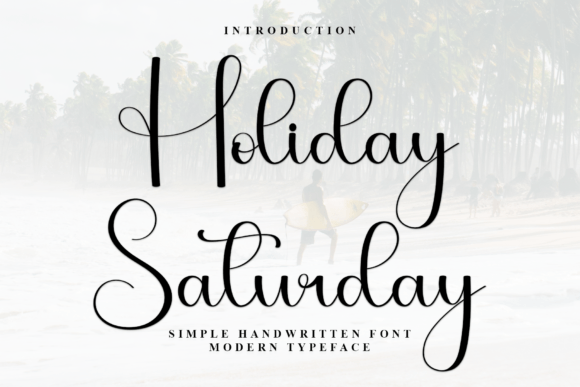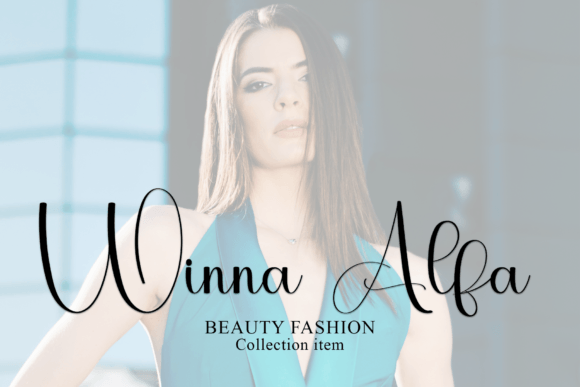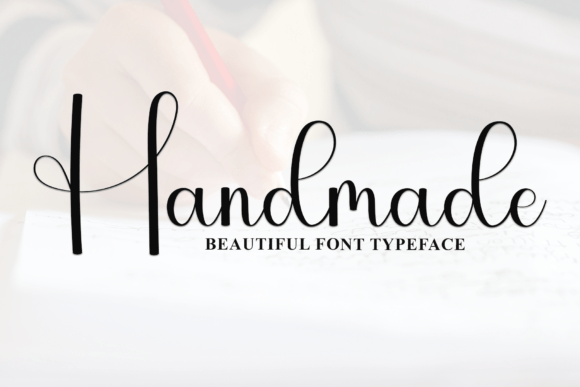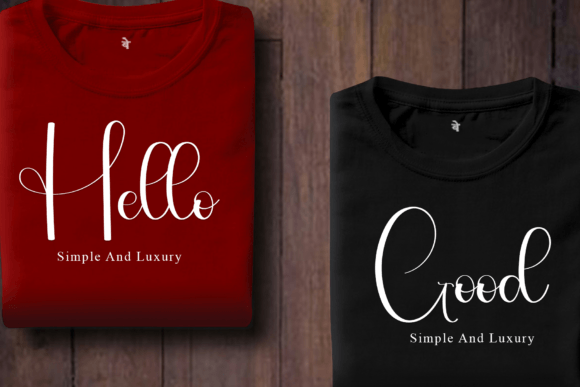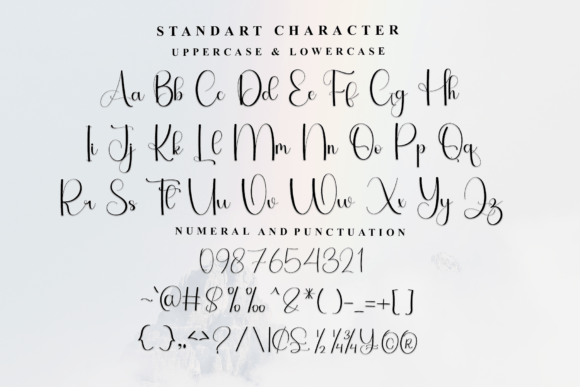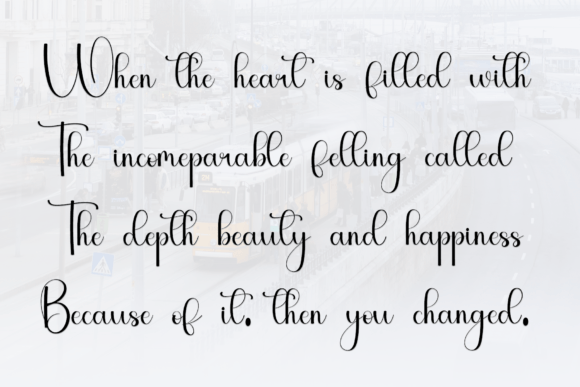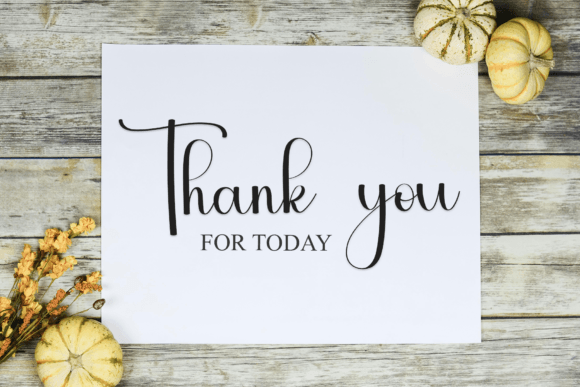
Discover the Magic of the Holiday Saturday Font
There’s something special about the moment when a design idea finally comes together. You’re sipping your morning coffee, surrounded by sketches and color palettes, and suddenly, it all clicks. The fonts, the colors, the textures – everything falls into place, and you know you’ve created something truly special. For designers like you, finding the perfect font can be the key to unlocking that magic.
That’s where the Holiday Saturday Font comes in – a beautiful, handwritten font that’s perfect for creating eye-catching logos, branding, and quotes. With its unique, handcrafted touch, this font brings a personal and emotional depth to any design. Plus, its PUA coding makes it easy to access all the amazing glyphs and ligatures, giving you even more creative freedom. Whether you’re working on a holiday project or just need a font that adds a little extra something, the Holiday Saturday Font is a valuable addition to any designer’s toolkit.
Holiday Saturday Font Key Features
- Font Family: Holiday Saturday is a script font, ideal for creating festive and celebratory designs.
- Unique Characteristics: Features intricate details, swashes, and flourishes, making it perfect for creating eye-catching holiday-themed designs.
Designer Review: Holiday Saturday Font
Overall, I think the Holiday Saturday Font is a cute and playful addition to any holiday-themed project. ✨ The font’s rounded edges and festive feel make it perfect for creating cheerful and welcoming designs.
- ✨ The font’s consistency and uniformity make it easy to read and use in various contexts.
- ✨ The font’s bold and italic styles add versatility to the design, making it suitable for headings, titles, and even body text.
- ✨ The font’s festive feel is perfect for holiday-themed projects, making it a great choice for designers who want to add a touch of cheer to their designs.
However, there are a few limitations to the Holiday Saturday Font that designers should be aware of:
- ⚠️ The font may not be suitable for formal or professional designs, as its playful and festive feel may not be suitable for more serious contexts.
- ⚠️ The font’s bold and italic styles may not be available in all languages or character sets, which could limit its use in multilingual designs.
In conclusion, the Holiday Saturday Font is a fun and festive addition to any holiday-themed project. While it may have some limitations, its consistency, versatility, and playful feel make it a great choice for designers who want to add a touch of cheer to their designs.
The Holiday Saturday Font is perfect for:
- Creating festive holiday invitations and cards.
- Designing holiday-themed social media graphics and ads.
- Adding a touch of holiday cheer to your branding and marketing materials.
Alternatives to Holiday Saturday Font for Designers
Bebas Neue is a modern sans-serif font that is perfect for headings and titles. It has a clean and minimalist design, making it ideal for digital and print designs. When to use: Bebas Neue is suitable for designs that require a bold and modern look, such as fashion, technology, and lifestyle brands.
Comparison to Holiday Saturday Font: Bebas Neue has a more modern and sleek design compared to Holiday Saturday Font, which has a more playful and vintage feel. Bebas Neue is also more versatile and can be used for a wide range of designs, whereas Holiday Saturday Font is more suited for festive and seasonal designs.